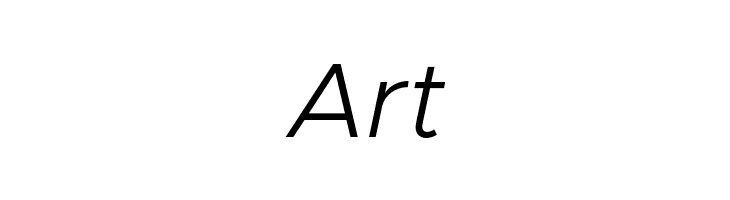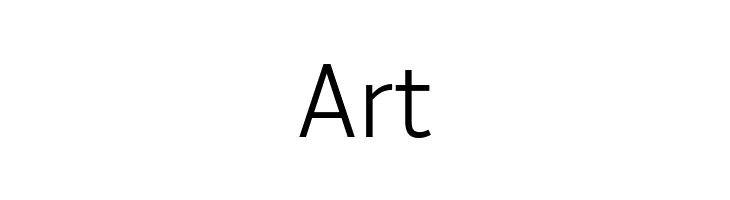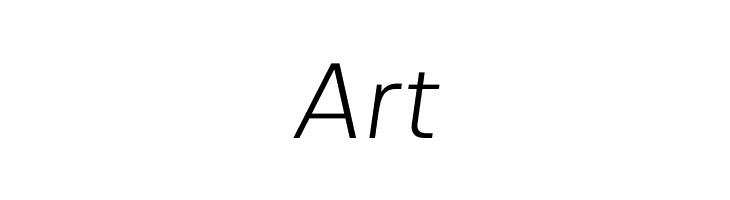
A classic serif font with modern elements and medium contrast.
An elegant italic serif font with high contrast and classic style.
An ultra-condensed, tall serif font with light strokes and a modern classic appeal.
A tall, ultra-condensed, light italic font with a modern and elegant style.
A bold, wide, and light serif font with a modern aesthetic.
An elegant, expanded italic serif font with a light weight and modern style.
An ultra-expanded, light serif font with a modern and bold aesthetic.
An ultra-expanded, light, and italicized font with a grand and dynamic style.
A modern, geometric font with thin lines and a minimalist design.
A bold, three-dimensional font with a shadow effect, ideal for impactful designs.
A playful, handwritten font with light, airy strokes and a casual style.
A refined serif font with thin strokes and elongated letterforms, exuding elegance.
A modern, light sans-serif font with a sleek and condensed design.
A sleek, modern light italic font with a sophisticated and elegant appearance.
A lively handwritten font with fluid, cursive letterforms and a playful elegance.
A fluid, elegant script font with an italic slant and expressive curves.
A bold, decorative font with a vintage 1920s flair.
A modern, rounded font with clean lines and uniform stroke width.
A smooth, rounded, light italic font with excellent readability and a modern feel.
A clean, modern sans-serif font with a light weight and rounded edges.
A sleek, modern sans-serif font with a light, italic style.
A futuristic, angular font with a robotic and geometric design.
A modern, condensed sans-serif font with a light and clean design.
A sleek, modern, condensed, light italic font with a clean and elegant style.
A modern, light sans-serif font with clean lines and excellent readability.
A sleek, modern, light italic font with low contrast and normal spacing.